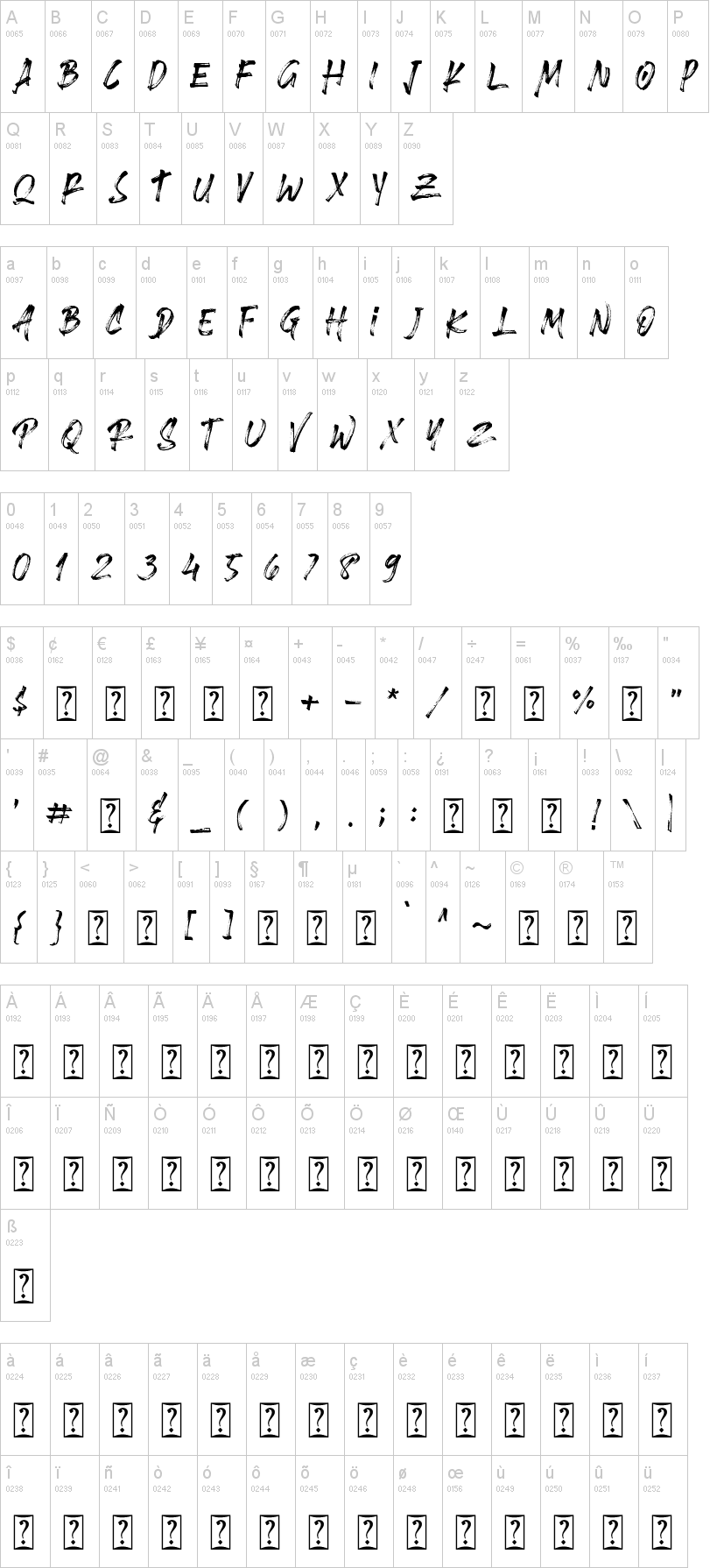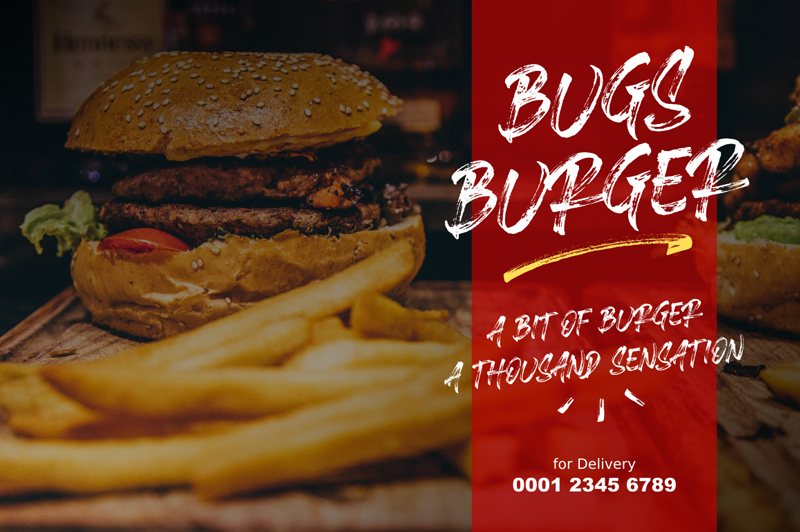
The Legend of BRUSHLIE
- urban typeface -
This font is made with real brush.
Brushlie is ideal for logos, apparel, quotes, product packaging, or anything which needs a typographic with natural brush taste.
Even though Brushlie is an uppercase font, the lowercase characters will give alternate for uppercase characters.